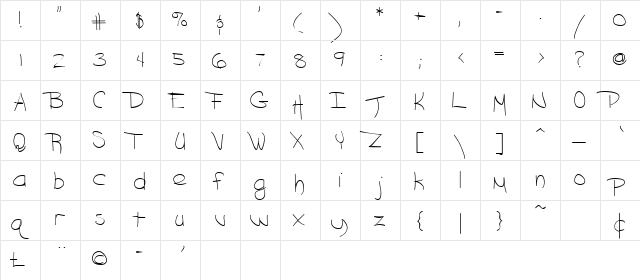
Ashley Regular
Design Context for Ashley Typeface
Ashley is a composed and adaptable typeface that performs quietly and consistently across a wide range of design contexts.
Pro Tip: Pair Ashley with a font of contrasting weight or personality to build a more expressive typographic hierarchy.